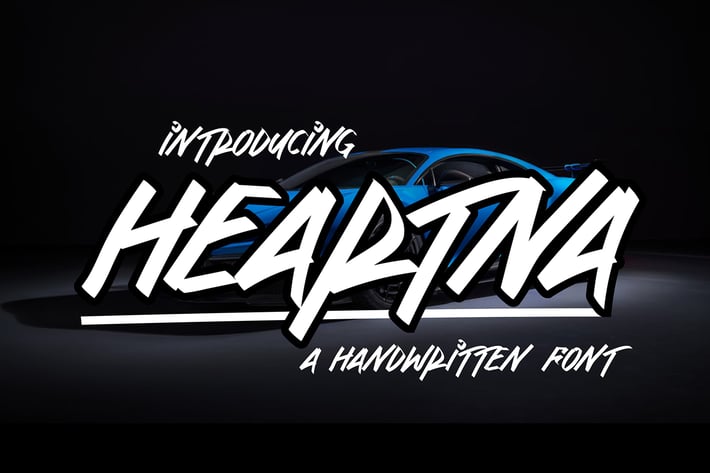
Heartna - Handwritten Font
Hello, this is Heartna - Realistic Awesome Monoline Display Font!
This font was designed so that users can use it more easily and make Monoline designs easier. Heartna is very suitable for use in various media such as; packaging, logos, labels, posters, bulletins, typography, and many other media, especially with the Monoline look.
- Uppercase & Lowercase